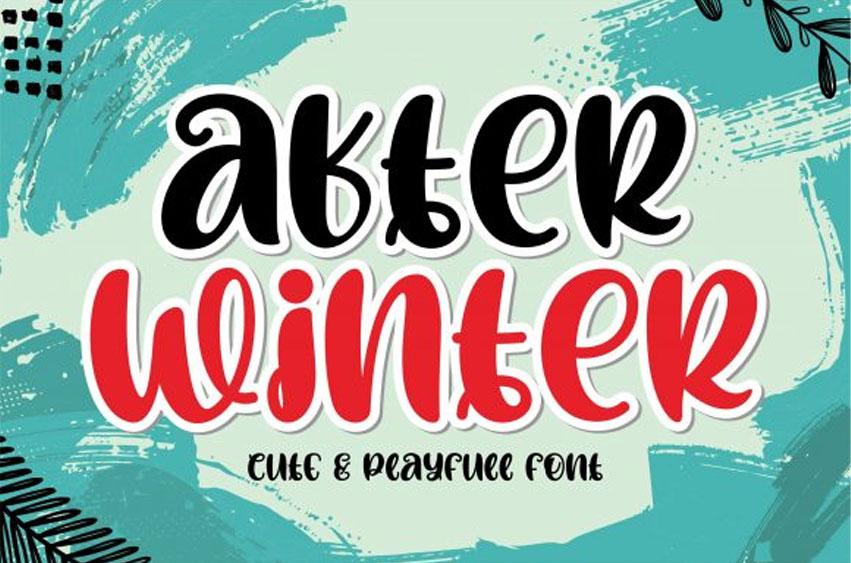
After Winter Font
After Winter Font is an incredibly quirky and sweet display font.
Whether you use it for cartoon related designs, children games or just any creation that requires a lovely touch, this font will be an amazing choice.